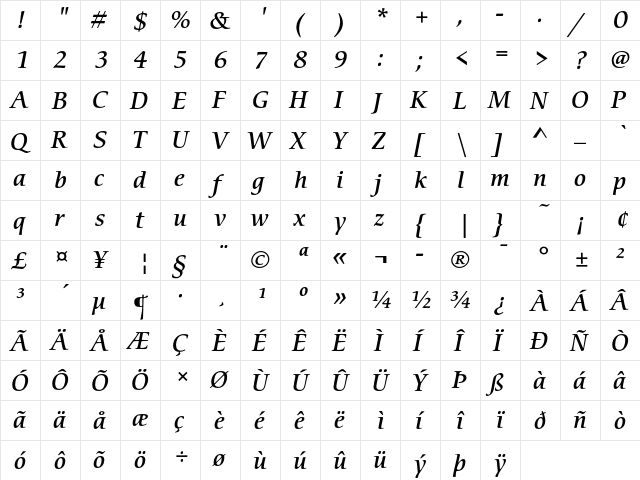
ITC Cerigo Medium Italic Font Preview
ITC Cerigo Medium Italic
Design Context for ITC Cerigo Typeface
ITC Cerigo is a composed and adaptable typeface that performs quietly and consistently across a wide range of design contexts. The dynamic lean of this cut emphasises speed and emphasis in any layout.
Pro Tip: Use ITC Cerigo for emphasis, pull quotes, and subheadings where its slanted energy can add rhythm to the layout.